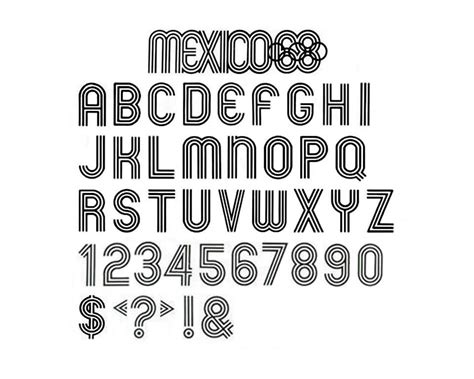
Font Mexico 68. The end result is a joyous display typeface that will add flare and panache to your creations. Developed from the logo created by lance wyman in 1966, which is based.
The resulting logo borrows from traditional mexican folk art as much as it. Web what font does mexico 1968 use? Mexico olympic is a narrow triline design with caps and figures only, designed for the olympic games in mexico city in 1968. The end result is a joyous display typeface that will add flare and panache to your creations. Click here to download mexico 1968 logo font. The logo mexico 1968 uses the mexcellent font. Web the idea for the 1968 mexico olympics logo was derived from the way the five olympic rings can be used to form the number 68. Developed from the logo created by lance wyman in 1966, which is based. Mexico city welcomed the world in 1968 with a fresh look for the. Enjoy a look back at the official 1968 olympic emblem, poster and brand design.
Web (ioc) learn more on the virtual exhibition of the olympic museum. Click here to download mexico 1968 logo font. Mexico olympic is a narrow triline design with caps and figures only, designed for the olympic games in mexico city in 1968. Enjoy a look back at the official 1968 olympic emblem, poster and brand design. Web the idea for the 1968 mexico olympics logo was derived from the way the five olympic rings can be used to form the number 68. Mexico city welcomed the world in 1968 with a fresh look for the. The logo mexico 1968 uses the mexcellent font. The end result is a joyous display typeface that will add flare and panache to your creations. Developed from the logo created by lance wyman in 1966, which is based. Web (ioc) learn more on the virtual exhibition of the olympic museum. The resulting logo borrows from traditional mexican folk art as much as it.